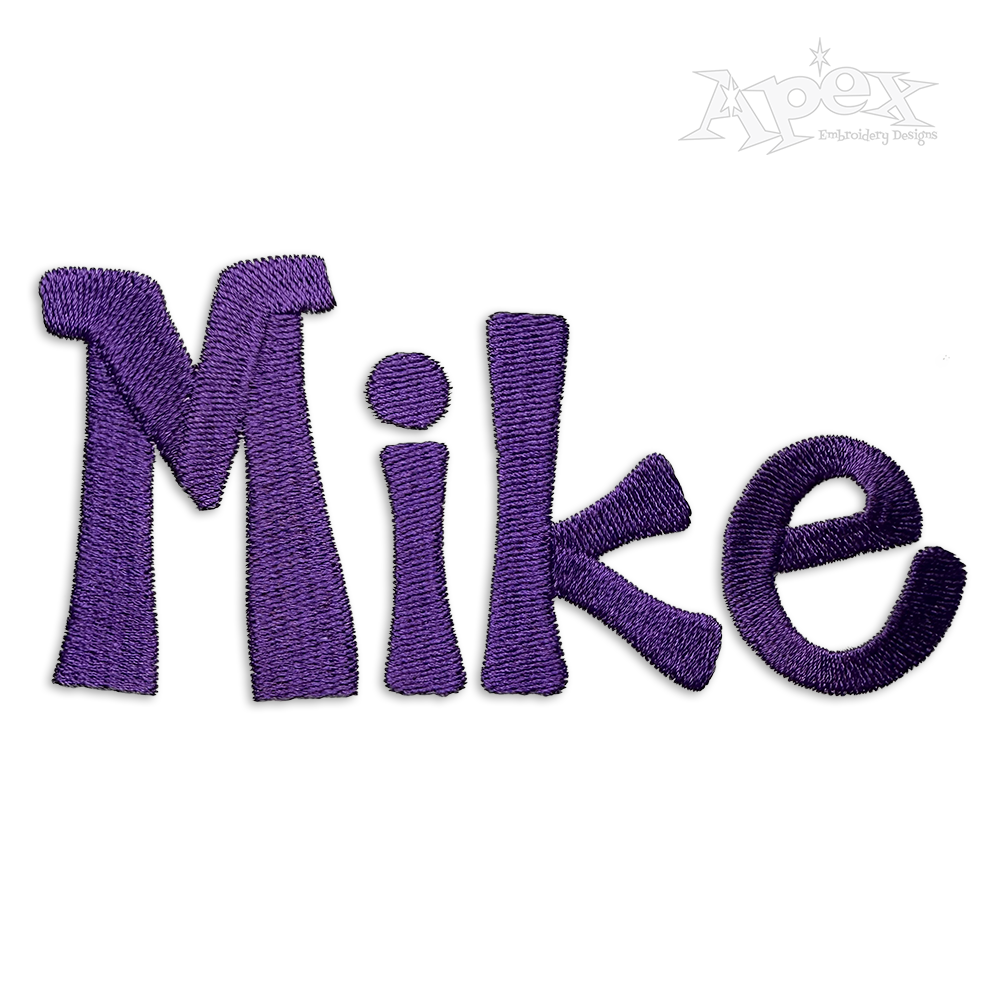
Whimsey Embroidery Font
Conceived during an afternoon of sketching loose, carefree lettering, the Whimsey Embroidery Font captures the spirited charm of hand-drawn storybook typography. We designed this collection to move beyond the rigid formality of traditional monogram alphabets and instead embrace an exuberant, jaunty rhythm—where ascenders sway with delightful curiosity and rounded counters feel generous and warm. Digitized with a rich, smooth fill stitch rather than a standard satin line, each letter becomes a solid, tactile canvas of thread that catches the light beautifully, bringing vibrant soul and bespoke delight to every fabric it touches.
Whimsey Embroidery Font Craft & Letterform Details
Digitizing a relaxed, hand-styled alphabet requires incredible precision to ensure it appears effortlessly organic rather than uneven. The Whimsey Embroidery Font is engineered with a continuous, dense fill stitch tailored to maintain smooth edge definition while minimizing fabric puckering. Our digitizing strategy incorporates structural underlay paths that stabilize the textile grain before applying the top fill, ensuring the rounded bowls and curving stems stay plump and crisply defined across both woven and knit fabrics.
Special attention was poured into pull compensation around the swooping terminals and undulating baselines. Rather than a monotonous stitch direction, the internal fills subtly follow the organic sweep of each letter, giving the finished embroidery depth, dimension, and an artisanal, hand-crafted presence that elevates any embroidery project into a treasured creation.